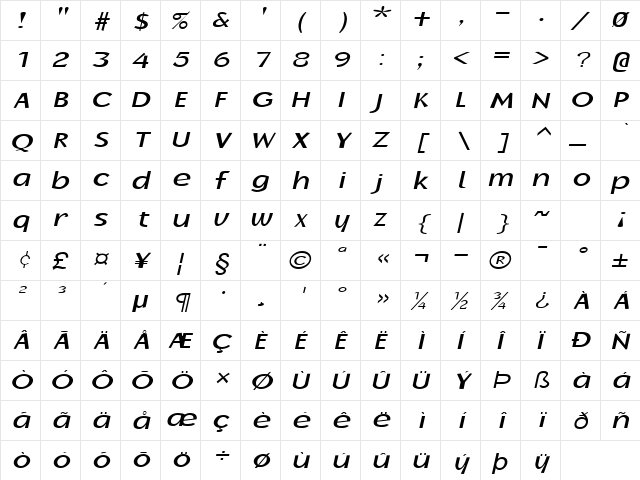
Oak-Ridge-Extended Italic
Design Context for Oak-Ridge-Extended Typeface
Oak-Ridge-Extended is a composed and adaptable typeface that performs quietly and consistently across a wide range of design contexts. Its italic angle brings a sense of urgency and motion to the letterforms.
Pro Tip: Try Oak-Ridge-Extended for annotation and caption copy alongside an upright companion — the contrast in angle creates a dynamic but ordered typographic system.